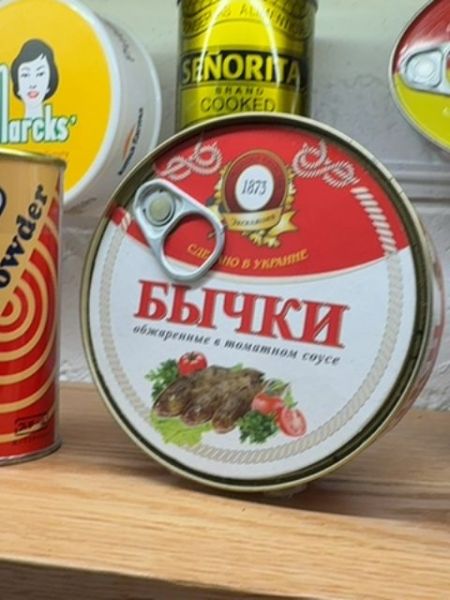
Бычки (Bychki)
Canned bullheads fried in tomato sauce.
1873
Ukraine
The typography features a bold, serif font for the product name 'Бычки,' conveying a sense of tradition and robustness. The use of a red color for the text aligns with the overall color scheme and enhances visibility. Additional text is in a smaller, less prominent serif font, maintaining consistency across the packaging.
The packaging is a round tin can with a pull-tab lid. The design features a primarily red and white color scheme with ornate decorative patterns and an image of the product surrounded by tomatoes and herbs, suggesting freshness.